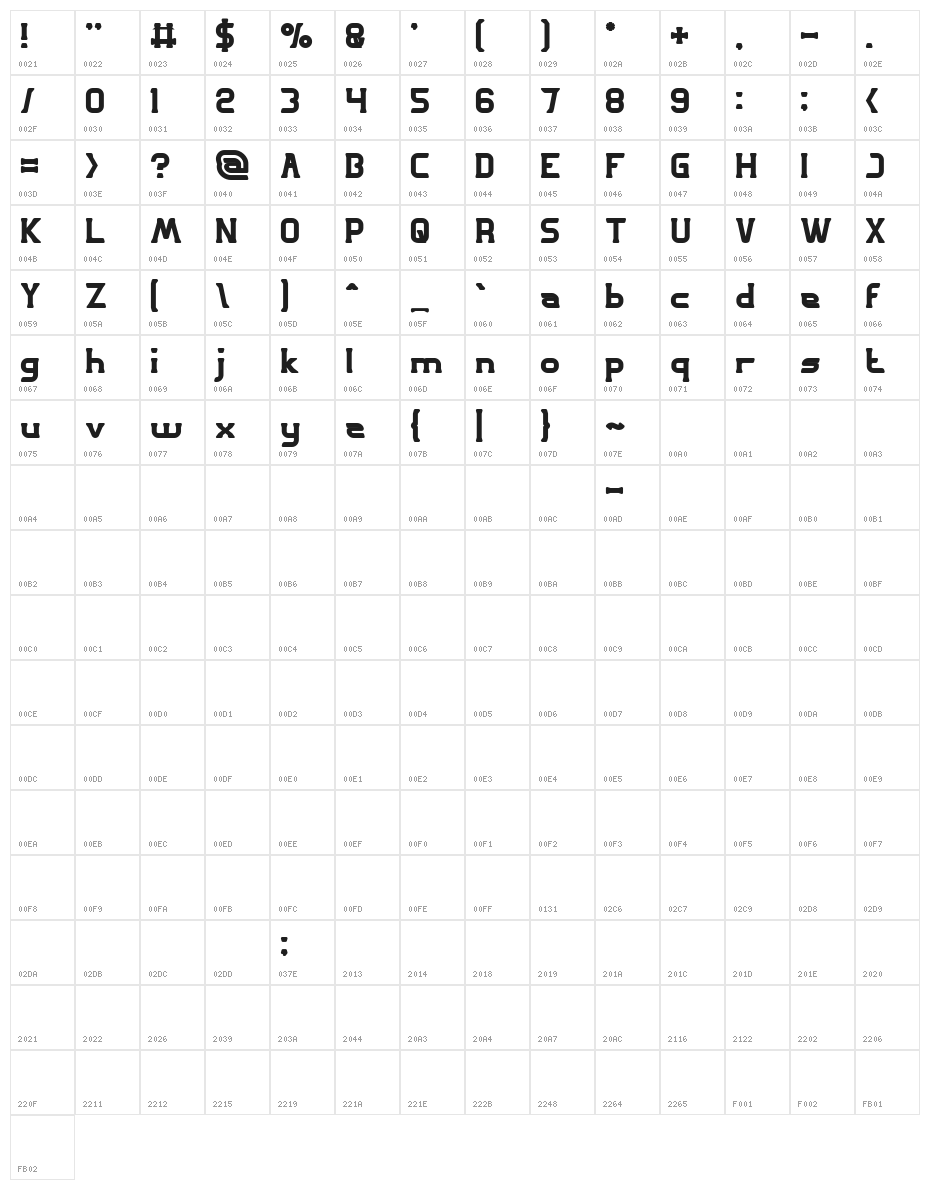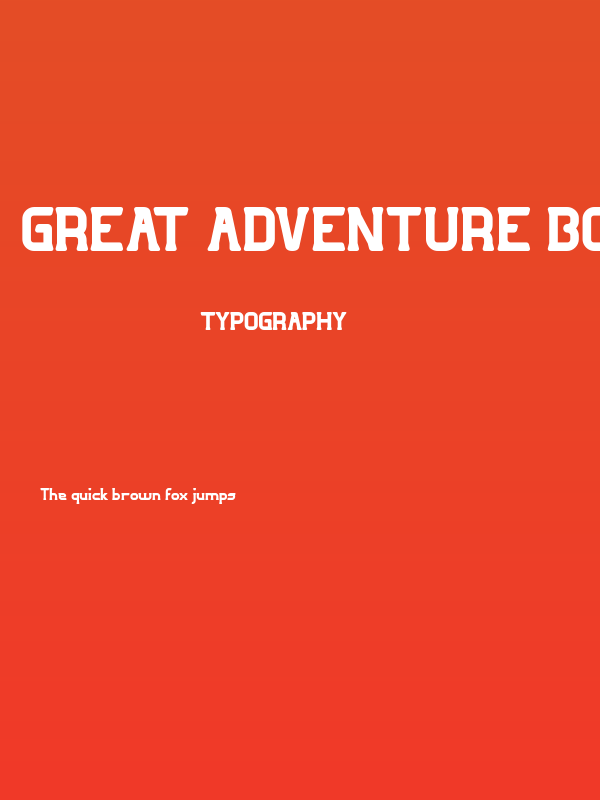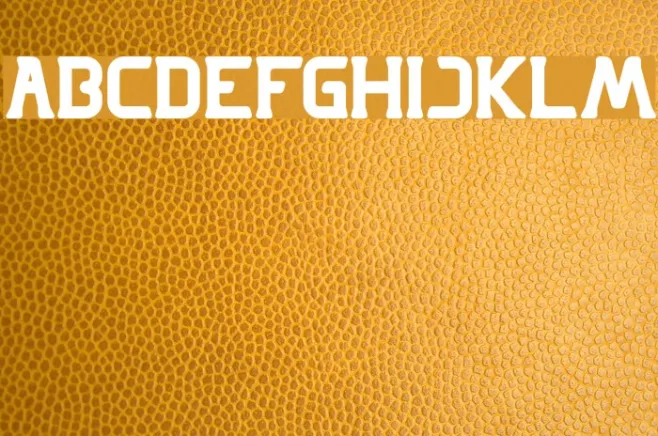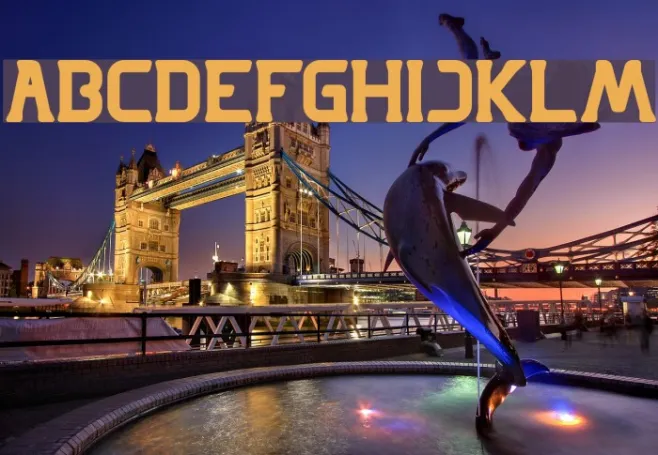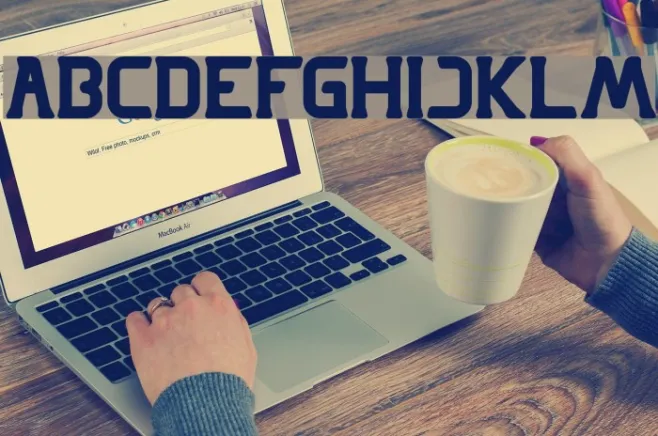
GREAT ADVENTURE Bold Font
GREAT ADVENTURE Bold Description
This font features a bold and adventurous style with a unique, slightly rounded geometric design. The uppercase letters are robust and commanding, while the lowercase letters maintain a consistent weight and structure, offering a cohesive look. The numerals are clear and legible, with a modern touch that complements the overall design. Special characters are well-integrated, maintaining the font's bold aesthetic. The font's strong presence makes it ideal for attention-grabbing headlines and impactful designs.
| Proposed Projects | Ideal for branding, posters, adventure-themed designs, and bold headlines. |